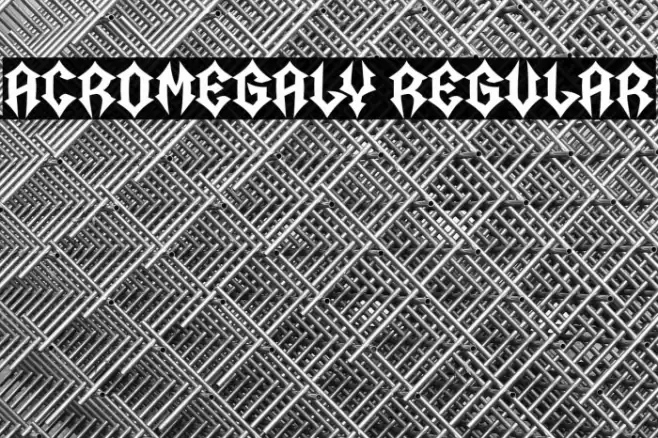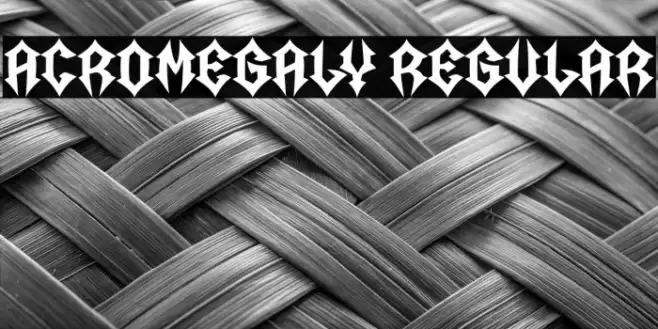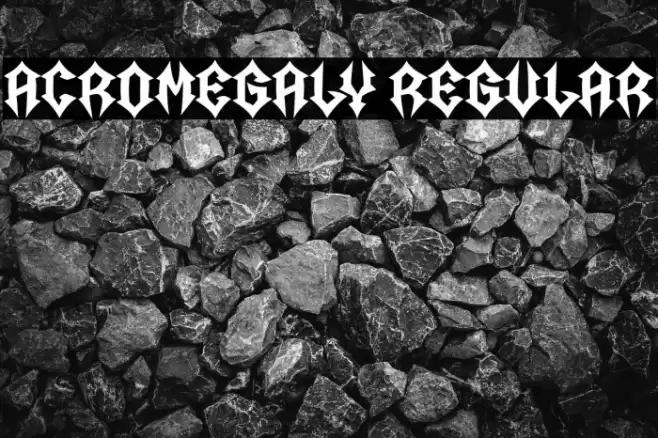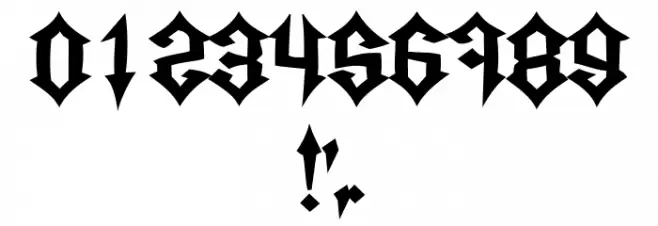
Acromegaly Regular Font
Acromegaly Regular Description
This font features a bold, angular design with sharp, pointed edges and a gothic aesthetic. The characters are highly stylized, with dramatic serifs and a consistent thickness throughout. The uppercase and lowercase letters maintain a cohesive look, emphasizing the font's strong, decorative nature. Numbers and special characters follow the same design principles, ensuring uniformity across all glyphs. This font's striking appearance makes it ideal for projects that require a bold statement.
A bold, angular font with a gothic, decorative style from Regular fonts.
- Font: Acromegaly Regular
- Proposed Projects: Ideal for tattoo designs, band logos, posters, and any project needing a bold, gothic aesthetic.